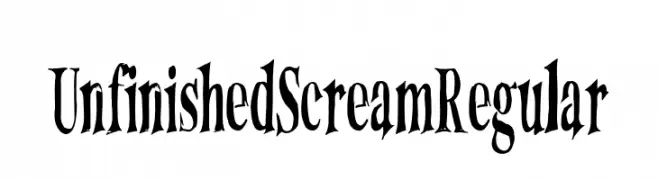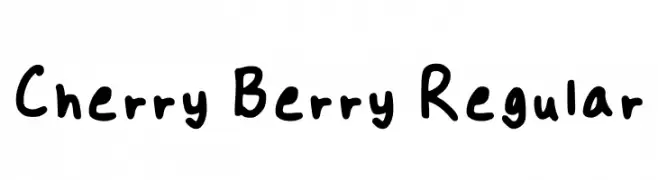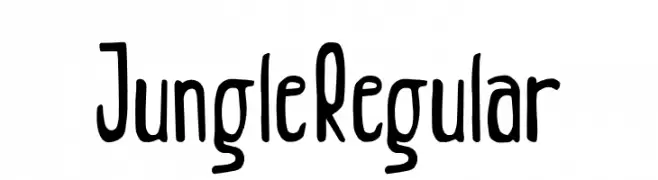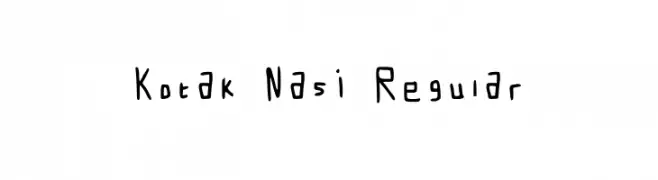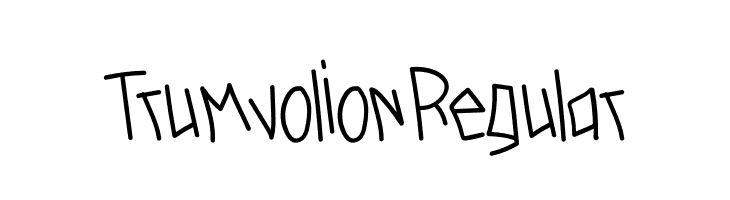
A dramatic and expressive serif font with sharp, angular features.
A playful handwritten font with rounded, irregular characters.
A playful, hand-drawn font with tall, narrow letterforms and slight irregularities.
A geometric, modern font with angular, boxy letterforms and consistent stroke width.
A playful, handwritten font with thin, irregular strokes and a casual style.
A whimsical, hand-drawn font with elongated, irregular strokes.
A whimsical, hand-drawn font with irregular strokes and a playful style.
A playful, casual handwritten font with irregular strokes and a lively appearance.
A playful, casual handwritten font with smooth, flowing lines and uniform letter height.
A geometric and modern font with angular lines and a futuristic aesthetic.